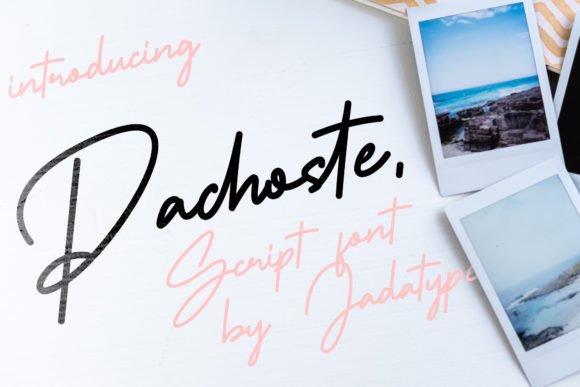
Introducing Pachoste Font, the remarkable script font that exudes class, charm, and charisma in every stroke! This font is a meticulous fusion of flair and finesse, designed to capsize your visual senses. Immerse yourself in the whimsical world of Pachoste and let your creativity take flight, crafting designs that spellbind and enchant.
With Pachoste Font, you can:
* Effortlessly design exquisite wedding invitations that shimmer with romance and forever enshrine the memories of your momentous day.
* Enchant social media posts with captivating visuals that draw eyes and hearts.
* Create logotypes that emanate heartfelt emotions, leaving a lasting, indelible impression on customers.
* Add a touch of whimsy and delight to your handmade crafts, infusing them with a captivating narrative that will turn heads.
* Design enthralling posters, fliers, and other marketing materials that sizzle with energy and leave a lasting impression.
The possibilities are truly endless with Pachoste Font, the font that knows no bounds. Its versatile nature lends itself to any creative endeavor that calls for a dash of magic and a sprinkle of panache. Let your imagination run wild as you explore the realm of design and bring your heartfelt expressions to life.
And the best part? Pachoste Font is PUA-encoded, simplifying access to the entire spectrum of its characters and swashes with effortless ease! Open up a world of typographical exploration and let your creativity know no bounds.